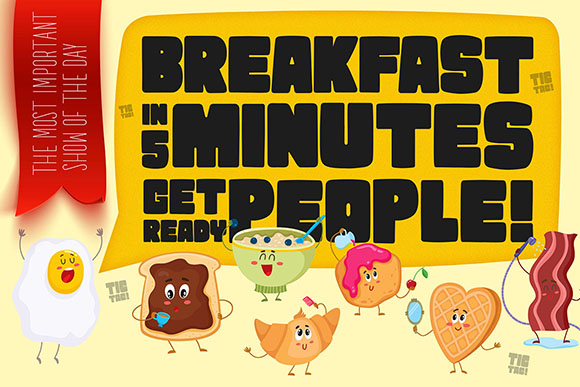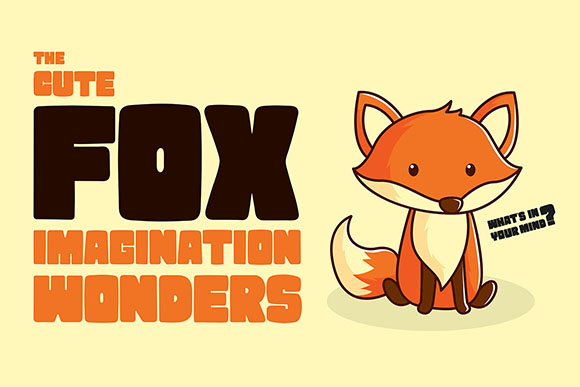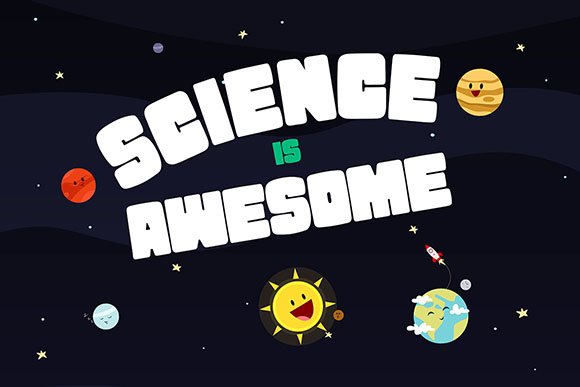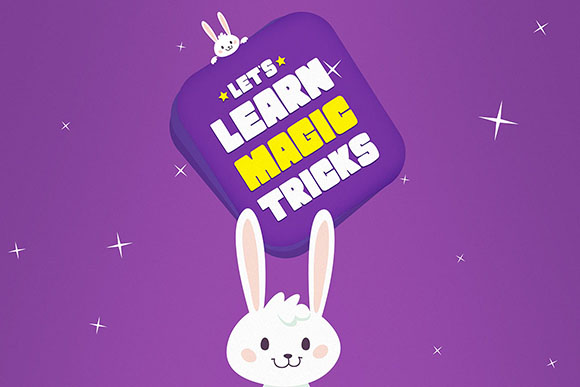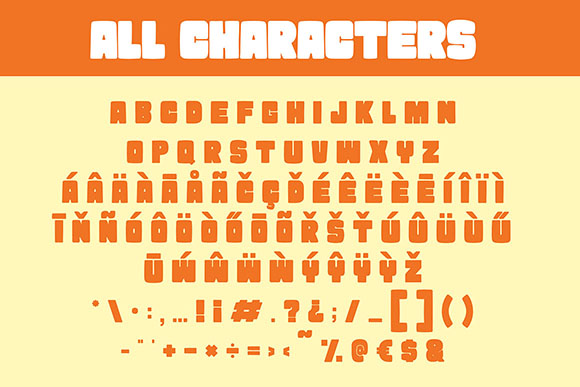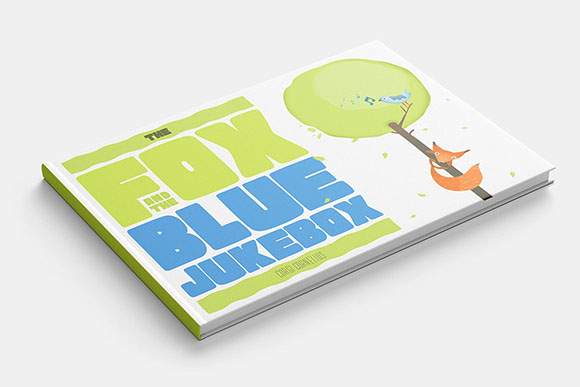
Introduction to Glubby Font
Meet Glubby a fun display font.
It’s perfect for fun, kids and children themes With its fat bold look you can use in big titles and headlines to create a very cute look.